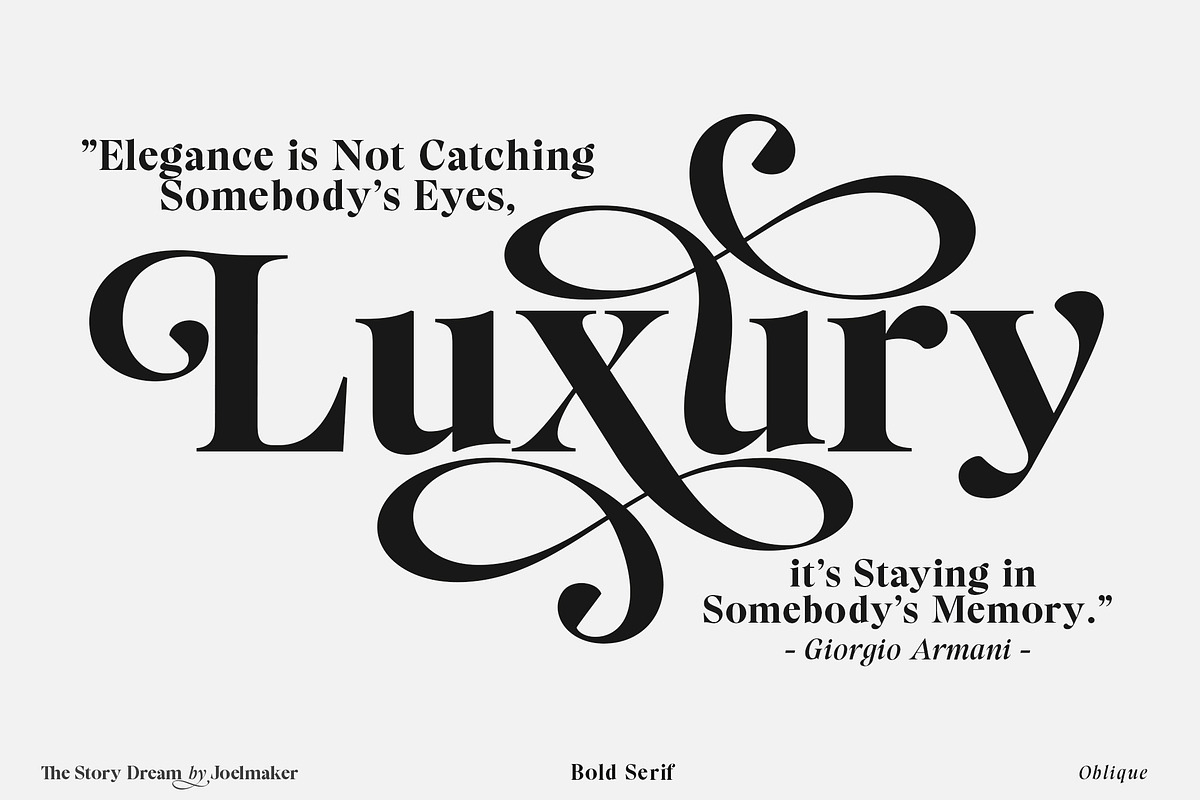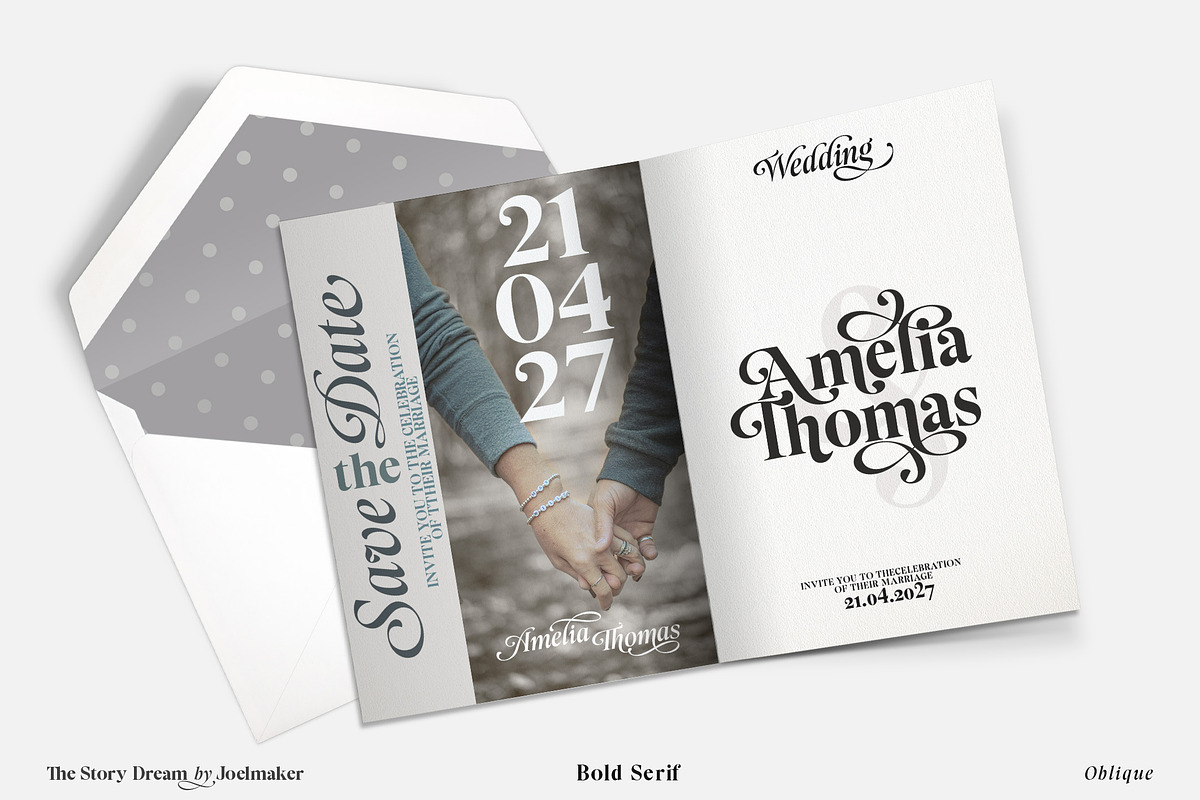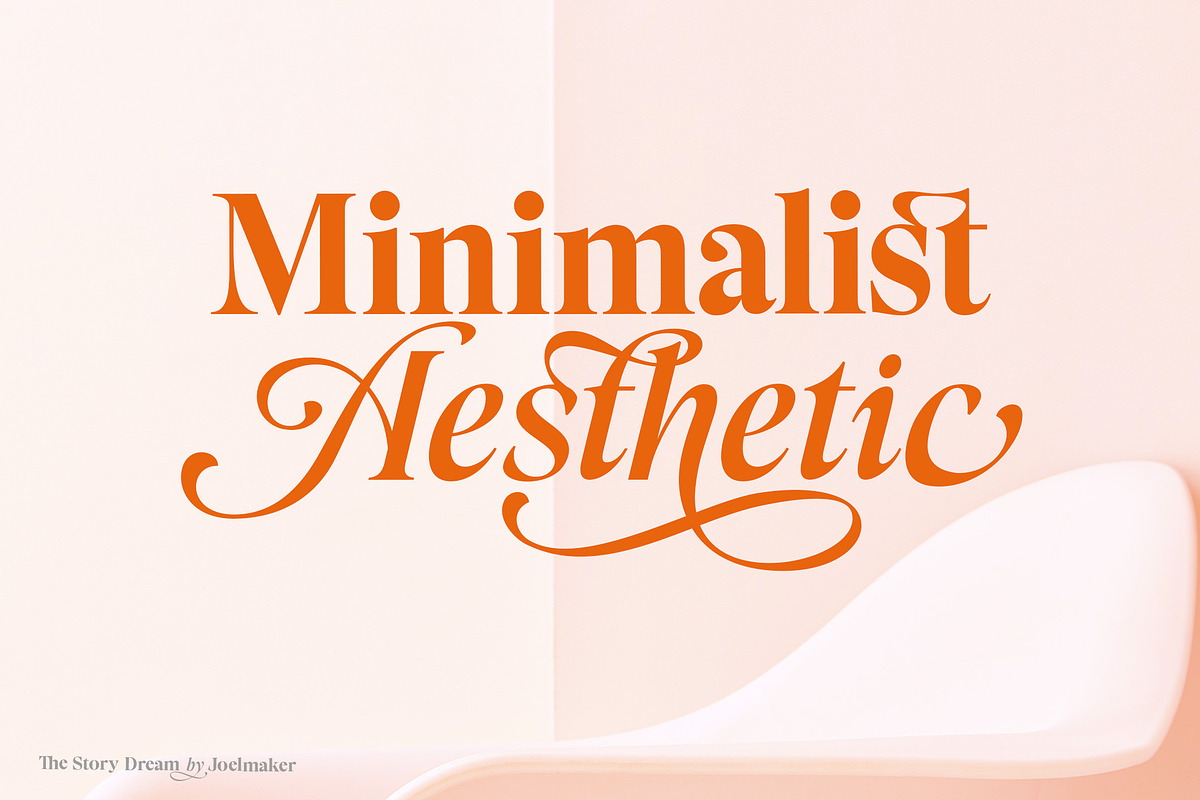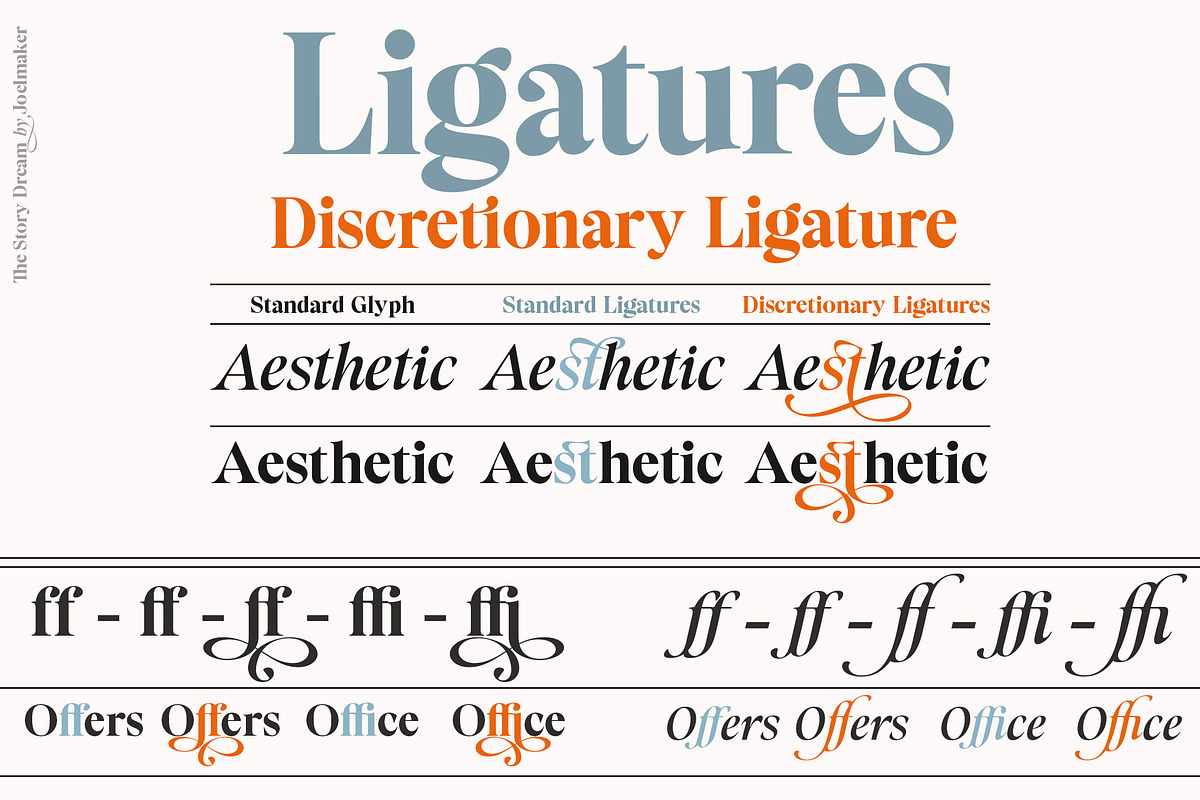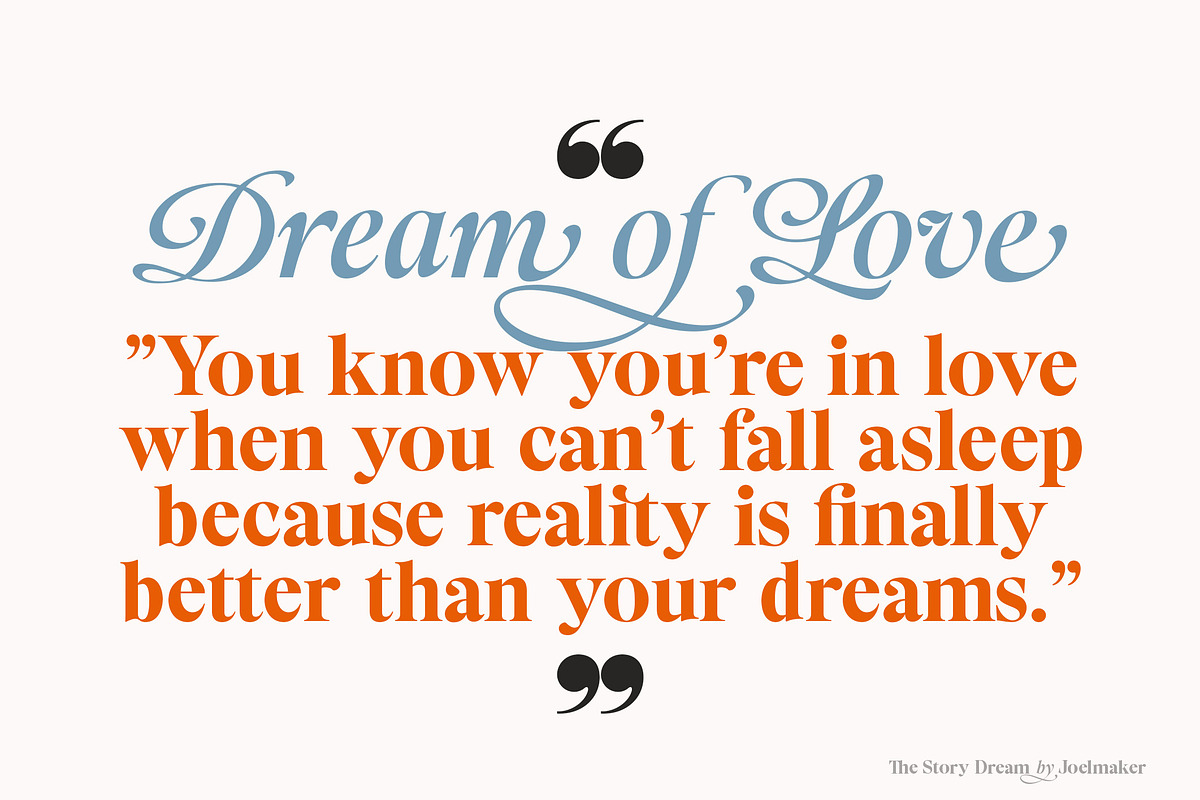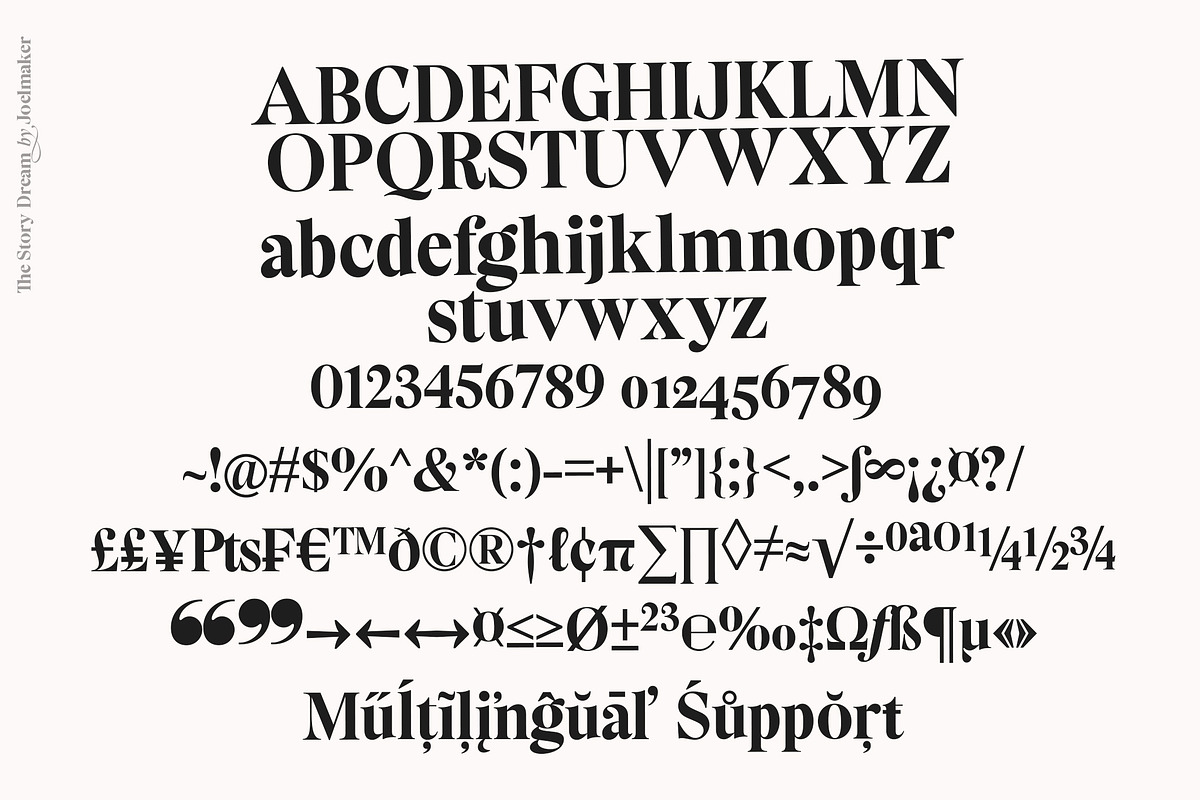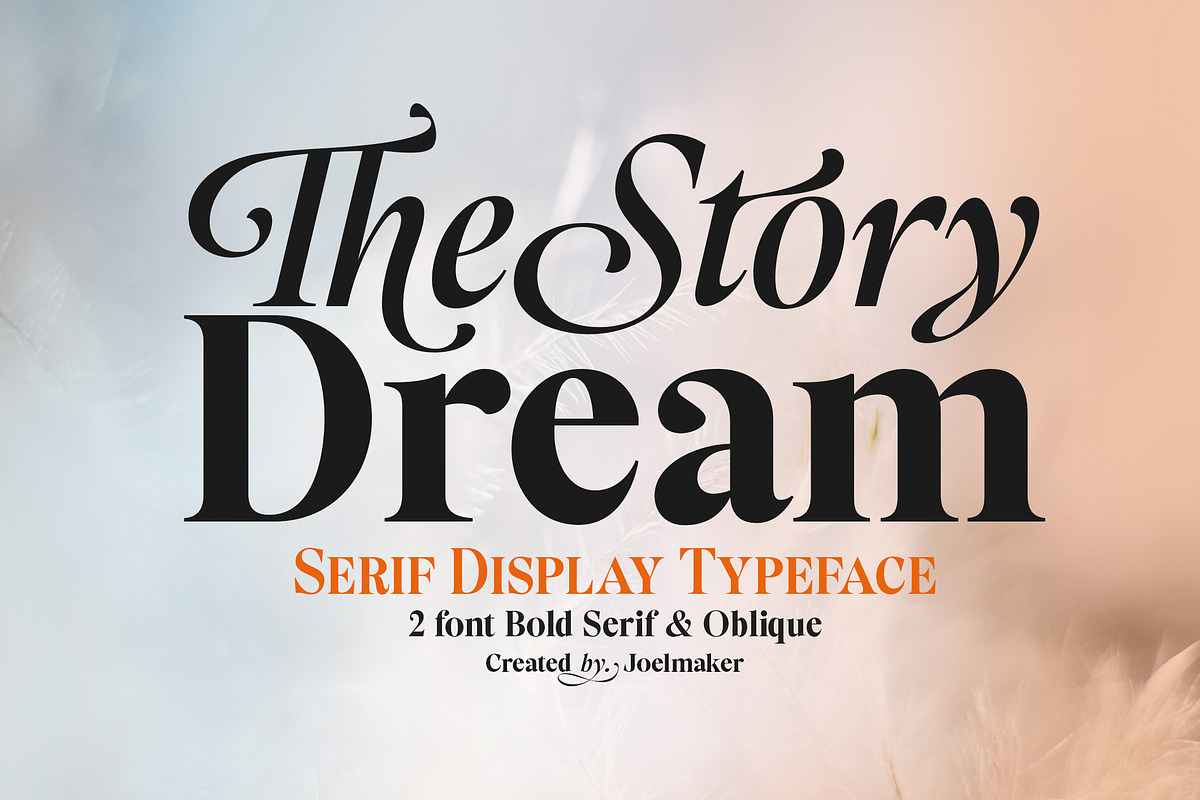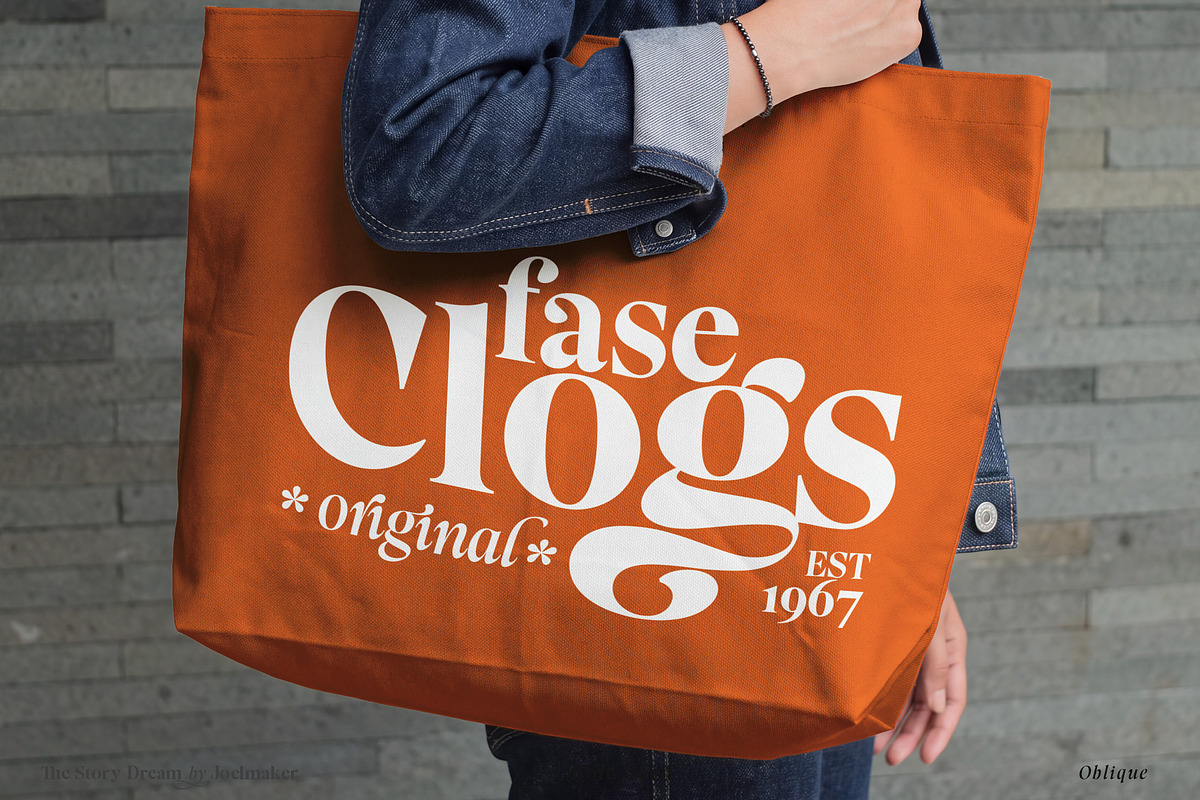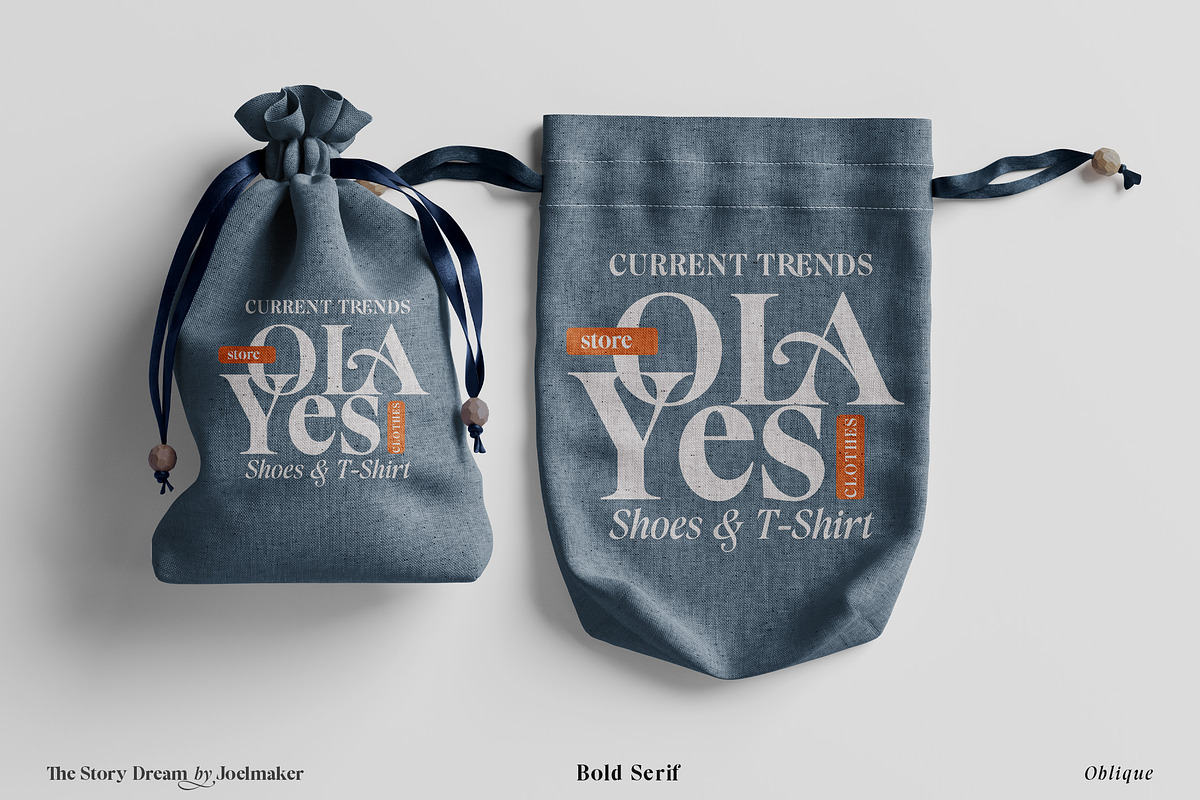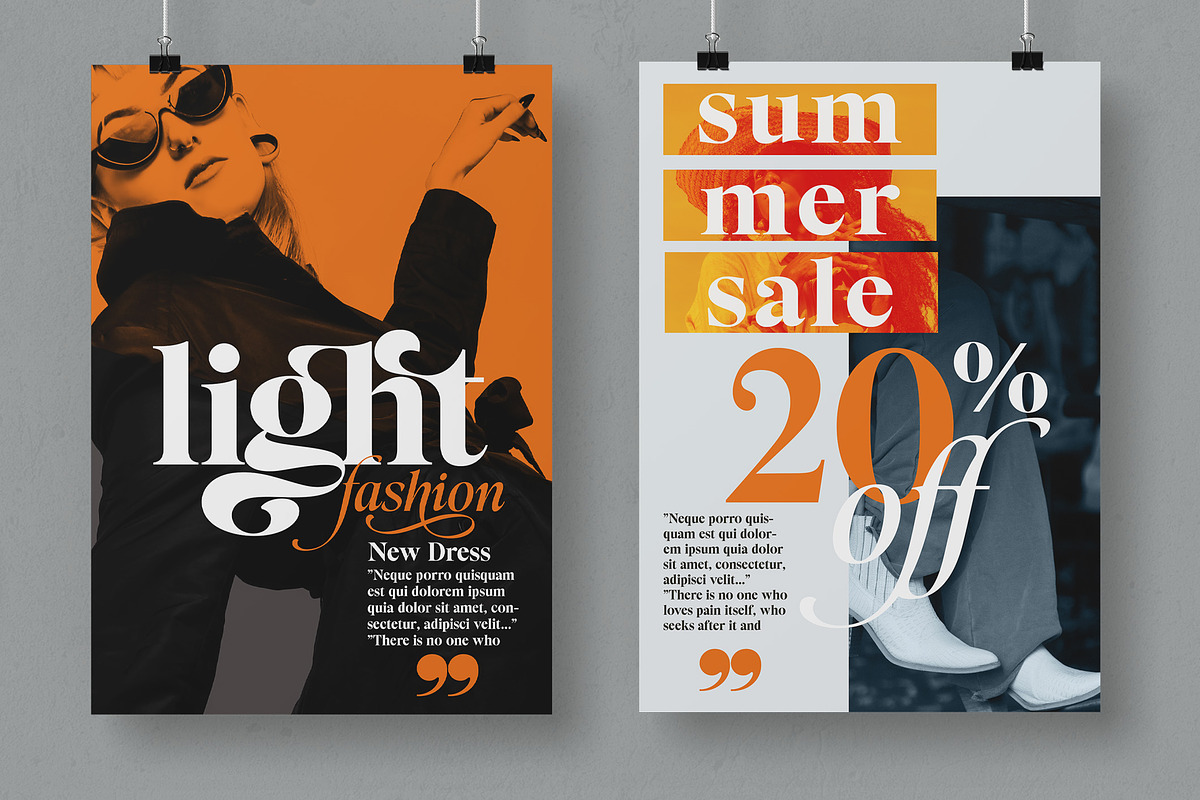
The Story Dream
Introducing;
"The Story Dream" Font Duo Serif Display & Oblique
** "The Story Dream"** – A Timeless Serif Display TypefaceUnveil the magic of storytelling with The Story Dream, a captivating serif display typeface meticulously. This font perfectly blends classic sophistication with a modern, whimsical twist, making it an exceptional choice for designers who want to leave a lasting impression.
combination Elegant Ligatures & Alternates features beautiful, flowing curves and unique character connections that add an instant touch of luxury and artistic flair. Add more the striking contrast between thick and thin strokes creates a bold, dramatic look that commands attention.
Designed specifically for high-impact displays, ensuring your text looks polished and professional, best suited for editorial & publishing: perfect for book covers, magazine headers, and literary projects. Ideal for luxury logos, high-end packaging, and fashion branding. elevates wedding invitations, quotes, posters, and social media graphics.
Turn your design concepts into a visual masterpiece. Let The Story Dream bring elegance, charm, and a poetic touch to your next creative project..!
Feature Font:
Swash
Titling Alternates
Stylistic Set
Standard Ligatures
Discretionary Ligatures.